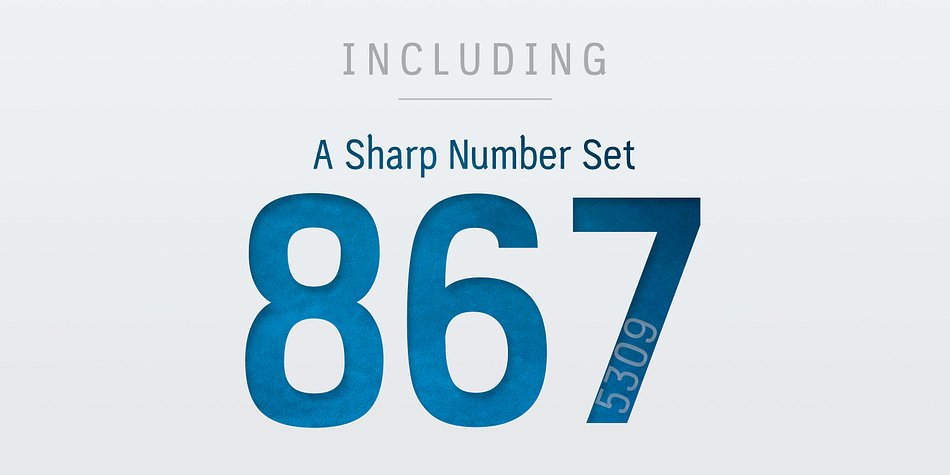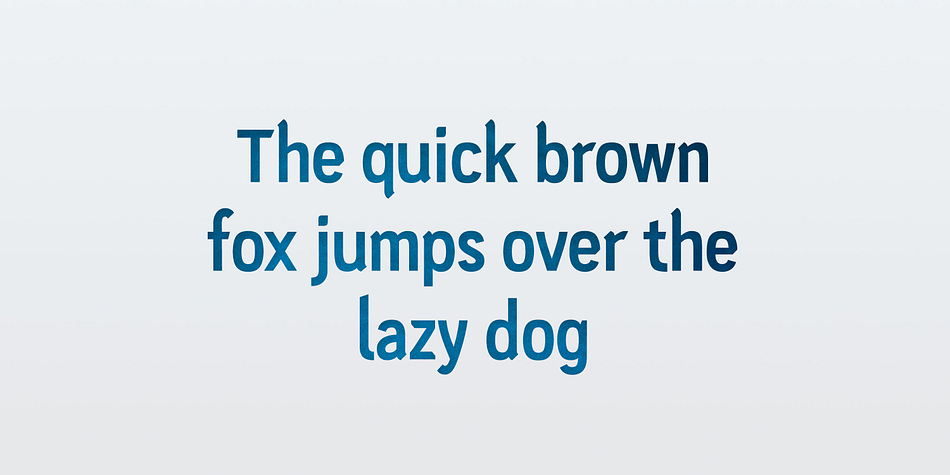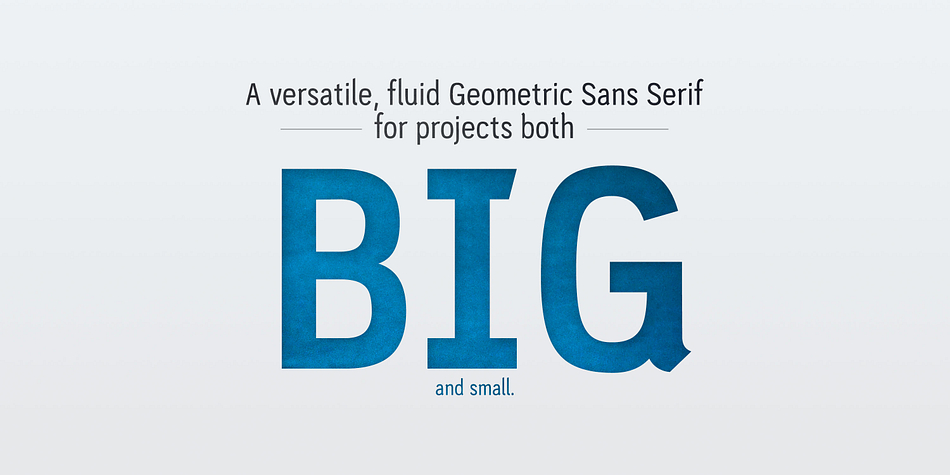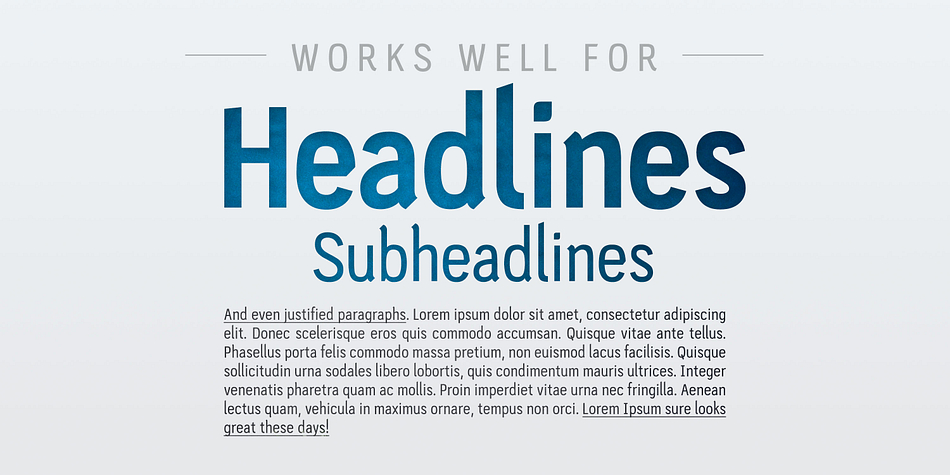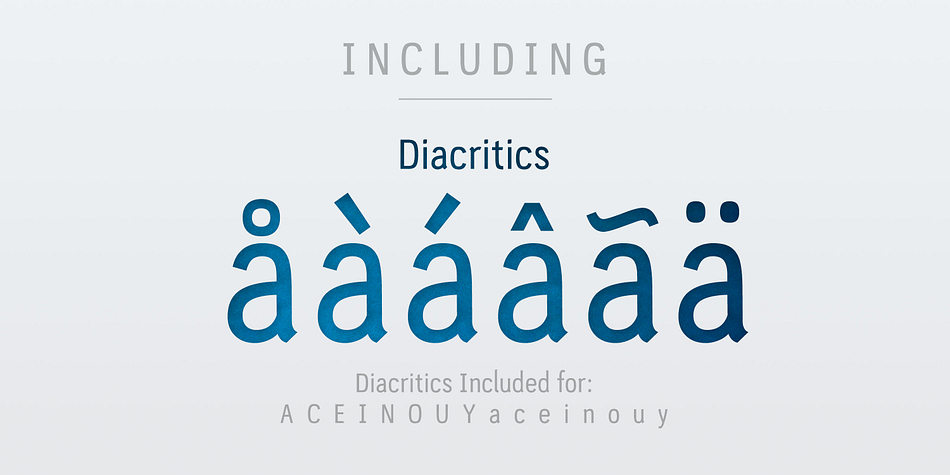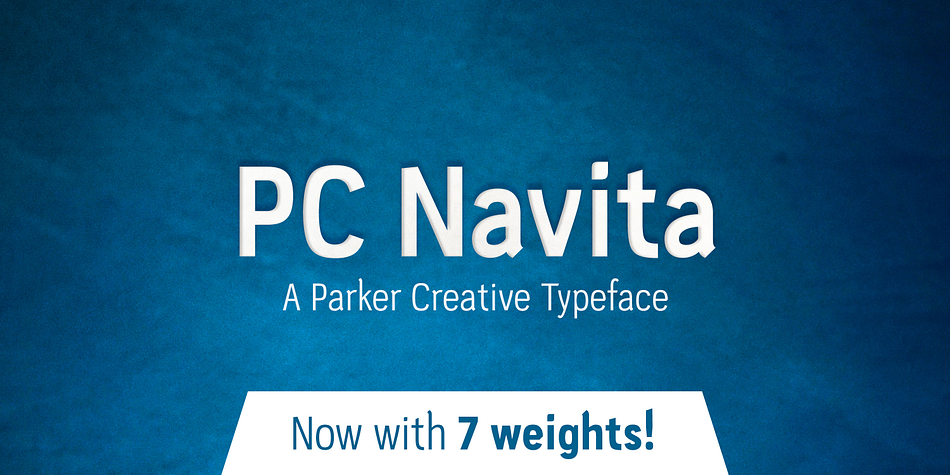
PC Navita is a sans serif font family. This typeface has fourteen styles and was published by Parker Creative.
PC Navita is a wide aperture geometric sans serif that features friendly curvature at terminals and a large x-height for improved legibility.
By its nature, PC Navita creates an informal, welcoming aesthetic while also remaining orderly on the page. No letter overshadows another to create a seamless uniformity, yet each character maintains it’s own subtle tweaks that enables the typeface to be more easily digested at small sizes.